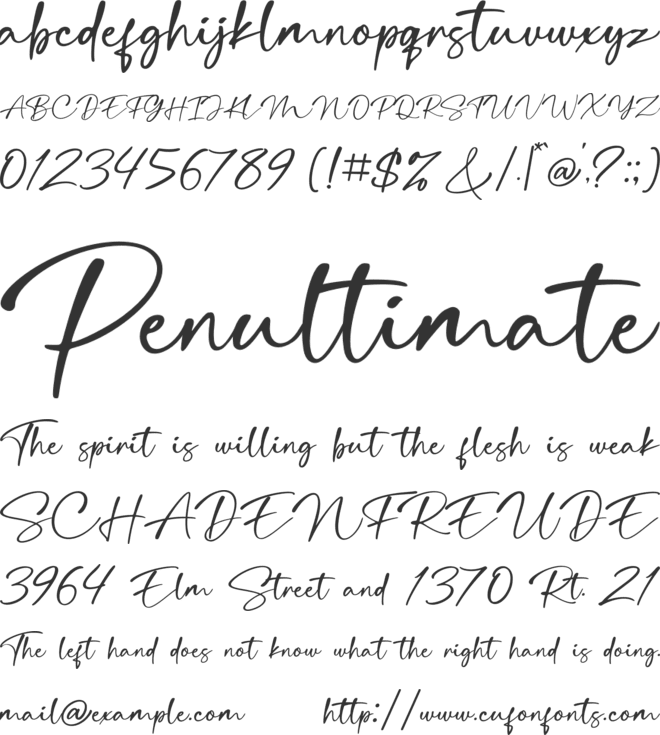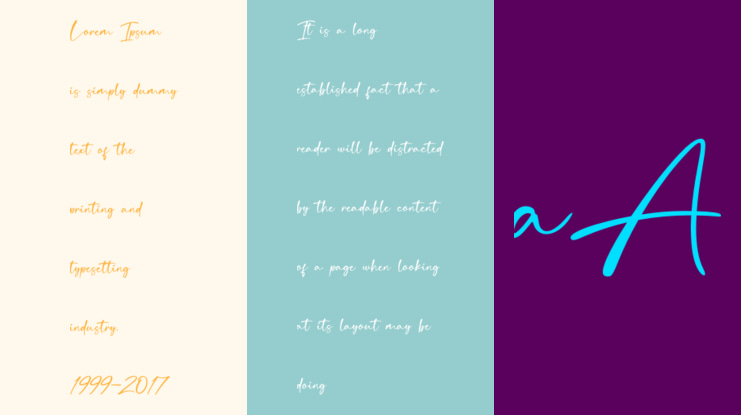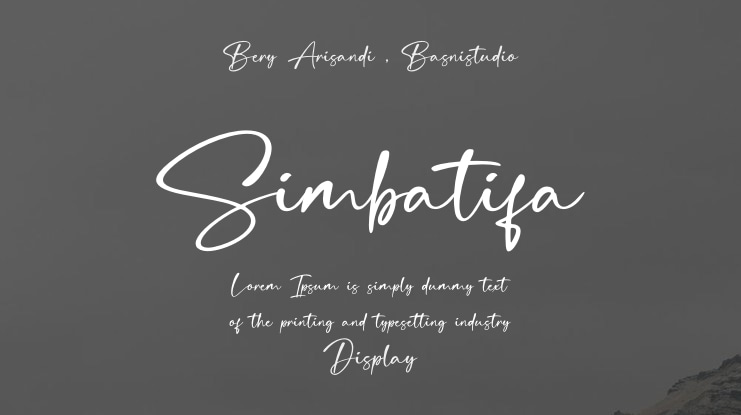
Simbatifa Font
Bery Arisandi , Basnistudio
INTRODUCING Simbatifa a Handwritten Font
Simbatifa a Handwritten Font that adds a elegant, versatile touch to everything from branding and social media to invitations and packaging.